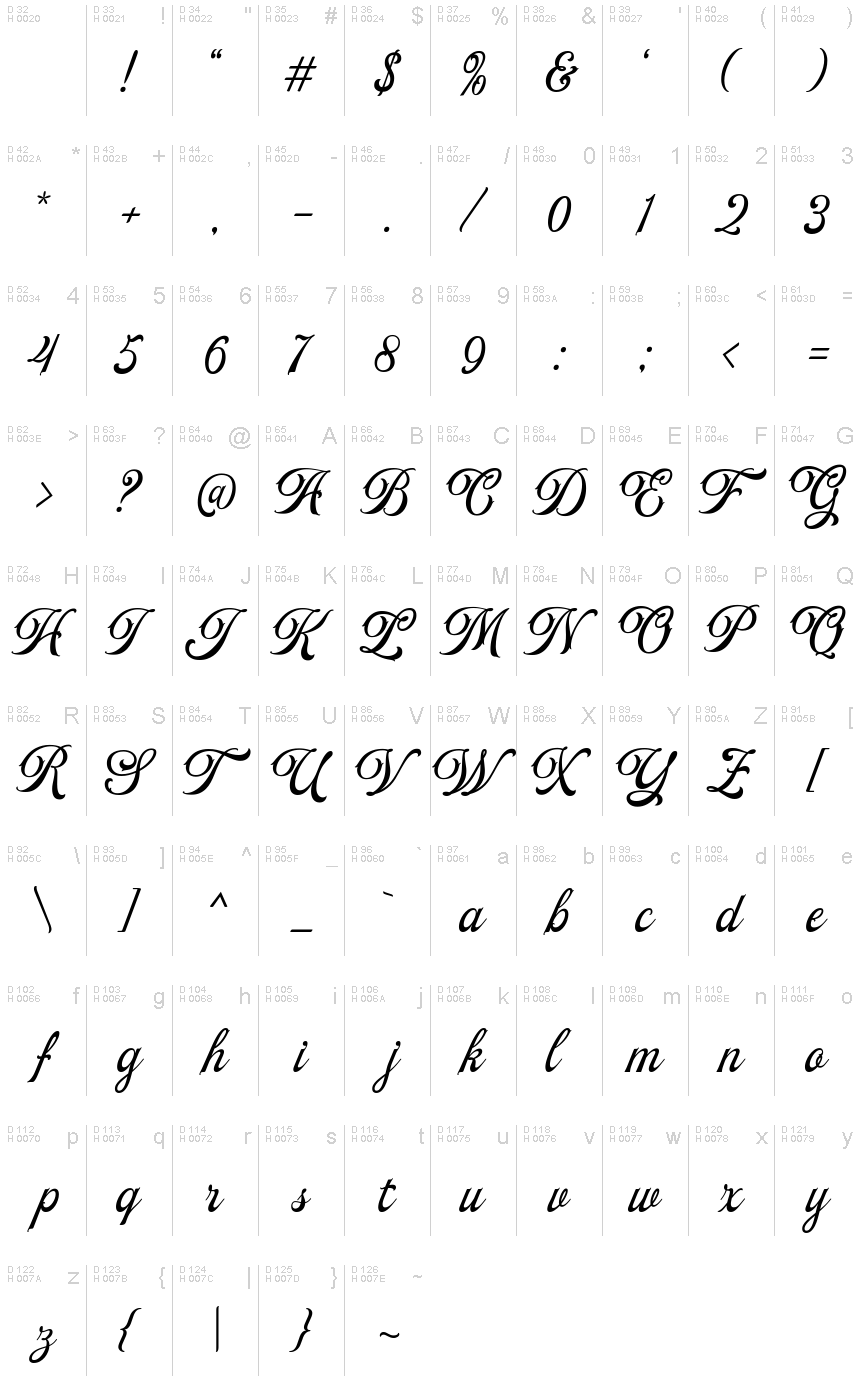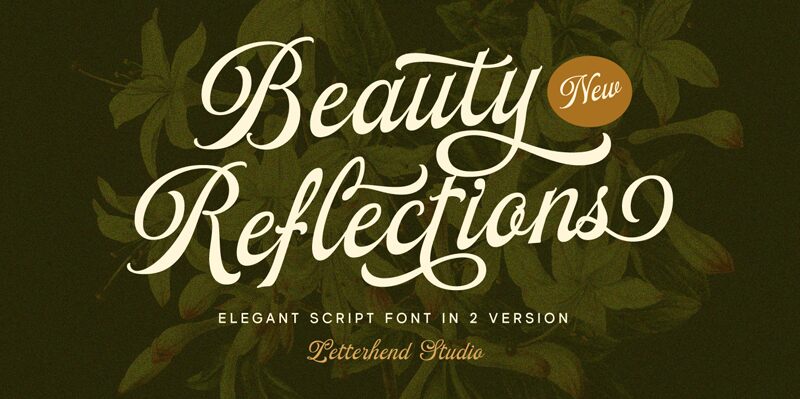
BeautyReflectionsCustomeDEMO
BeautyReflections Custome exudes elegance and sophistication with its flowing calligraphic strokes. This stunning font captivates the eye with its luxurious curves and intricate detailing, embodying a sense of artistry that elevates any design. The lightness of the font enhances its ethereal quality, while select exaggerated elements add a touch of dramatic flair.
Ideal for invitations, branding, or elegant signage, BeautyReflections Custome is perfect for projects that aim to evoke romance and charm. Its unique character allows it to stand out in a variety of contexts, making it a go-to choice for designers seeking to leave a lasting impression. With BeautyReflections Custome, every word becomes a statement of beauty and grace.